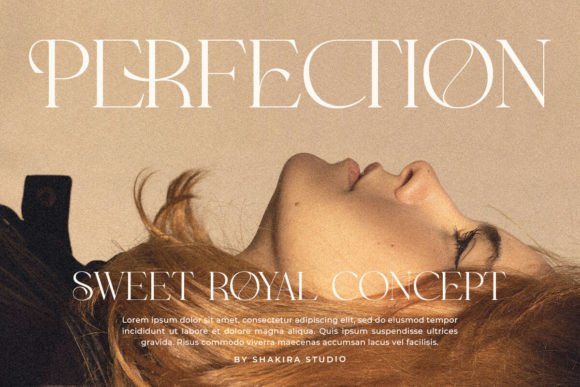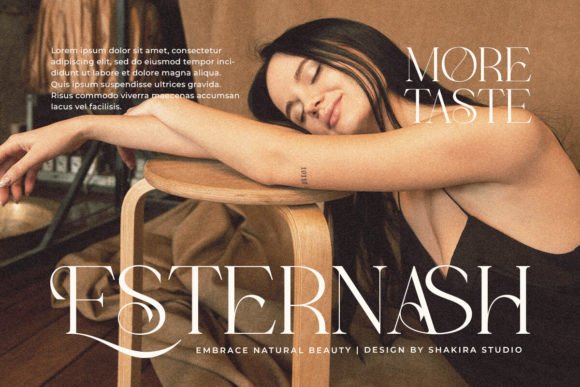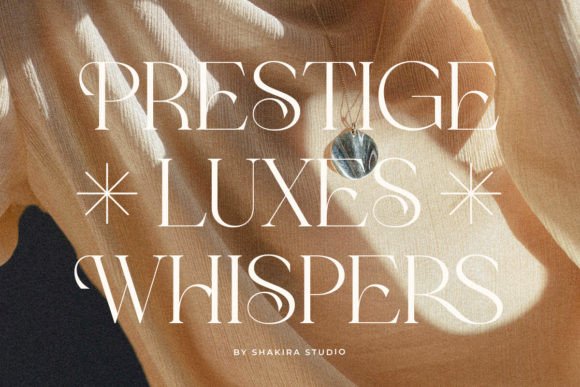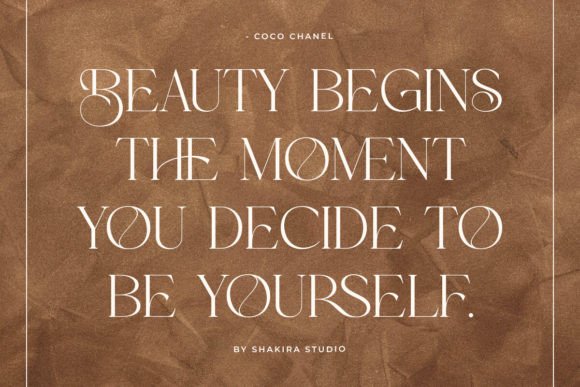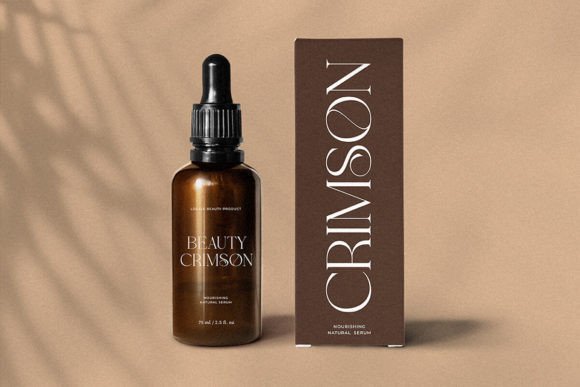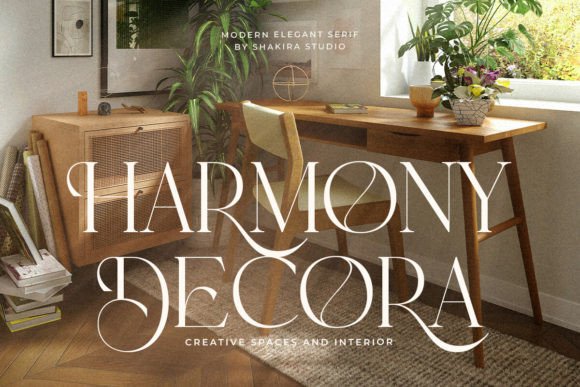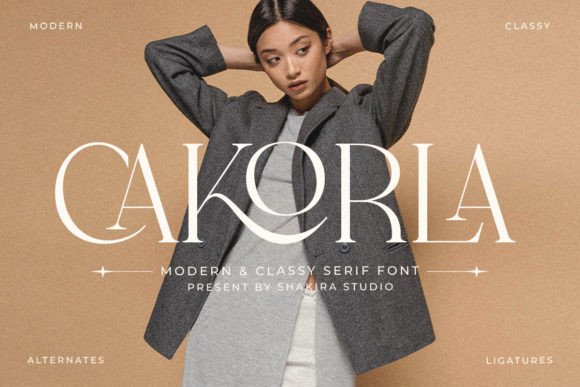
Cakorla Font: Elevate Your Designs with Sophistication and Style
In the world of typography, fonts play a crucial role in conveying the tone and aesthetic of a design. For those seeking to infuse their projects with a sense of luxury and modern class, Cakorla Font emerges as a premier choice. This exquisite typeface is not just a font; it’s a celebration of sophistication and style, meticulously designed to bring an unparalleled level of elegance to your creations.
The Essence of Cakorla Font
Cakorla perfectly embodies the essence of modern class and typography trends. Its design is a testament to the pursuit of perfection in typographic art, offering a blend of elegance and luxury that is hard to find in other fonts. With Cakorla, every character is crafted with precision, ensuring that your designs stand out with a distinct touch of sophistication.
Elegant Characters, Stylish Alternates, and Exquisite Ligatures
What sets Cakorla apart is its attention to detail. The font features elegant characters that serve as the foundation of its luxurious appeal. But that’s not all; Cakorla also comes equipped with stylish alternates and exquisite ligatures. These elements allow designers to add a layer of uniqueness and personality to their work, making each project distinctly memorable.
Perfect for High-End Designs
Cakorla’s luxurious feel makes it the perfect fit for high-end branding projects. Whether you’re crafting a brand identity that exudes opulence or creating elegant invitations that demand a refined aesthetic, Cakorla ensures that your work radiates class and sophistication. Its versatility also extends to editorial layouts, where it can elevate the reading experience with its refined and graceful appearance.
Applications of Cakorla Font
The applications of Cakorla are vast and varied. Here are a few areas where Cakorla can make a significant impact:
• Branding: Use Cakorla to create a luxurious brand identity that sets you apart from the competition.
• Invitations: Add an elegant touch to your wedding invitations, event invites, or any formal announcement.
• Editorial Layouts: Elevate your magazines, blogs, or books with a refined typography that enhances the reader’s experience.
• Advertising: Stand out in the advertising space with typography that commands attention and exudes professionalism.
Why Choose Cakorla?
In a sea of fonts, why should Cakorla be your go-to choice? The answer lies in its unparalleled ability to blend modern trends with timeless elegance. Cakorla is not just about aesthetics; it’s about making a statement. With Cakorla, you can:
• Enhance your designs with a sophisticated look.
• Express your creativity through elegant typography.
• Ensure your projects stand out with its unique alternates and ligatures.
Cakorla Font is more than just a typographic choice; it’s a statement of luxury, elegance, and sophistication. Whether you’re a designer looking to elevate your branding projects, a craftsperson aiming to add a touch of class to your creations, or simply someone who appreciates the beauty of refined typography, Cakorla is the perfect companion for your design journey. With Cakorla, you’re not just choosing a font; you’re embracing a world of elegance and style that can transform your designs into timeless pieces of art.